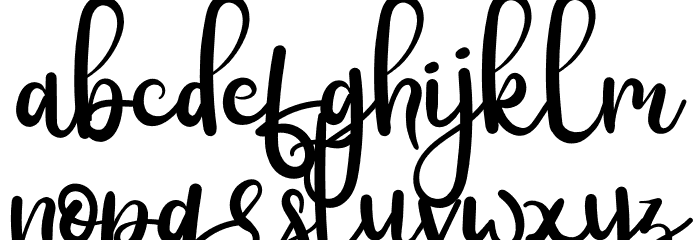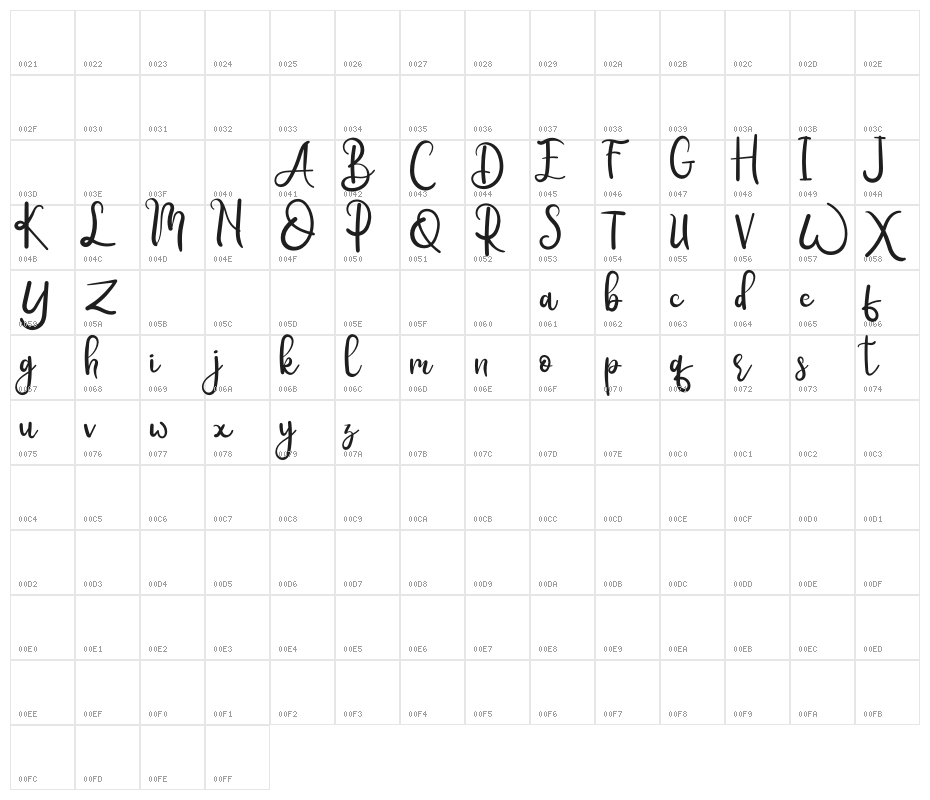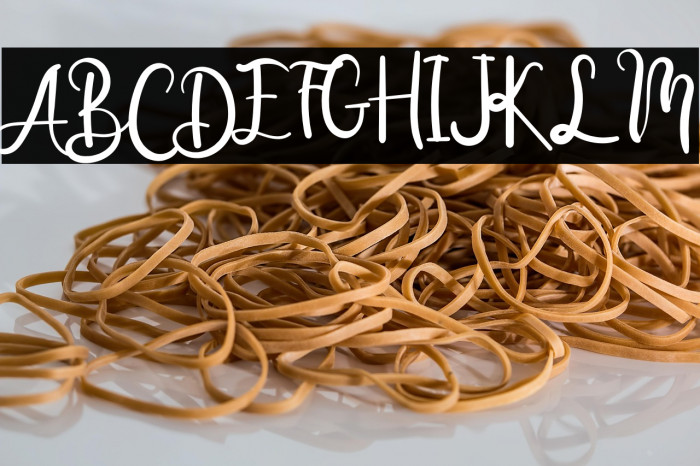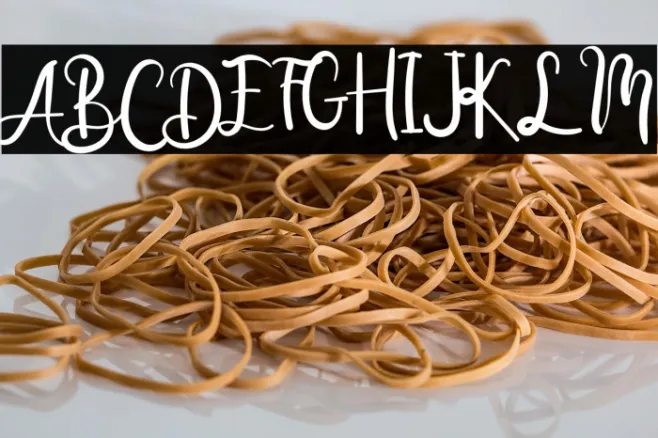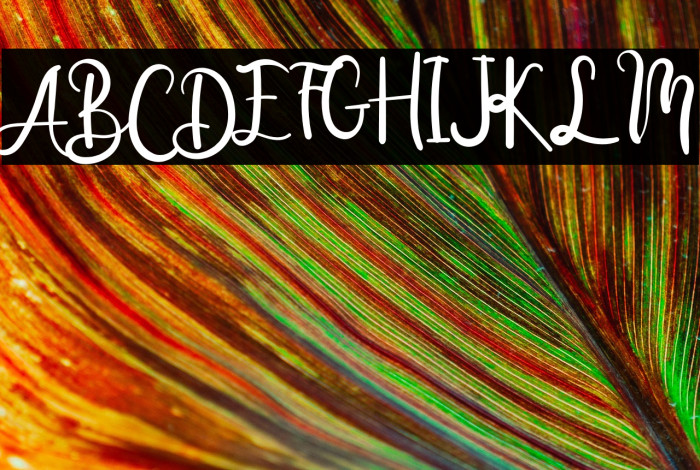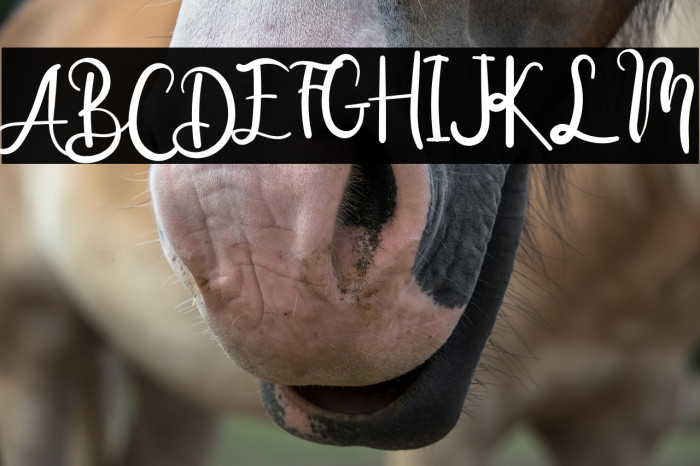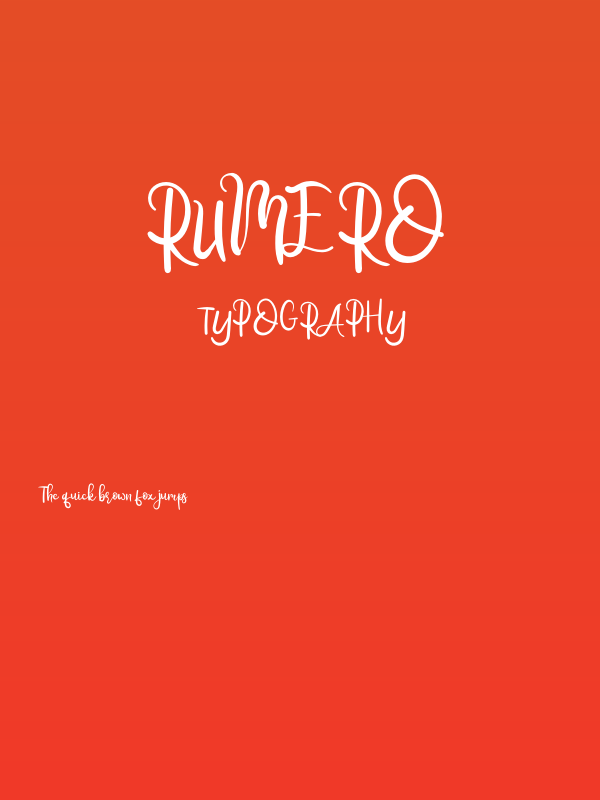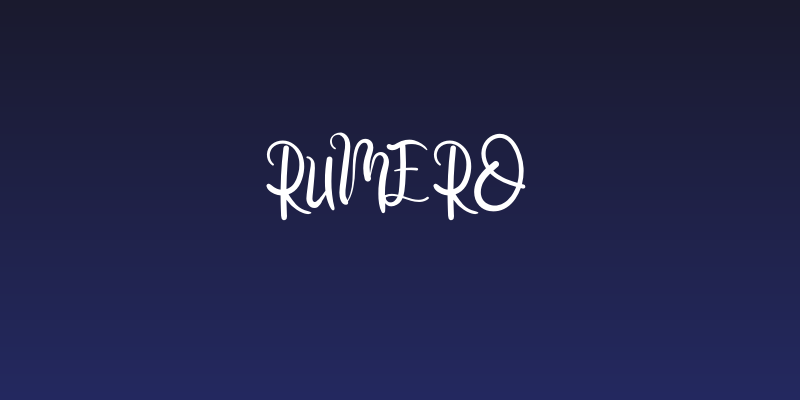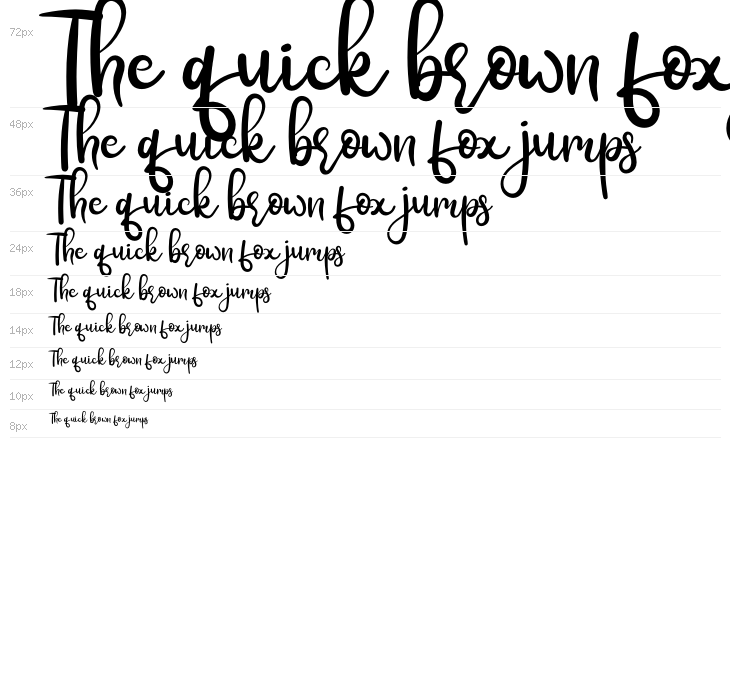
Rumero Font
This font exhibits a playful and artistic script style, characterized by its flowing and interconnected letterforms. The uppercase letters are bold and expressive, with a whimsical flair that adds personality to each character. The lowercase letters maintain a consistent fluidity, enhancing the overall cohesiveness of the font. The strokes are smooth and rounded, providing a friendly and approachable appearance. The special characters are integrated seamlessly, maintaining the font's unique style. This font is ideal for creative projects that require a touch of elegance and charm.
A playful and artistic script font with flowing, interconnected letterforms.
- Font: Rumero
- Proposed Projects: Ideal for wedding invitations, greeting cards, branding, and artistic posters.
- Category: Script
- Use Case: Logos, Headlines, Invitations